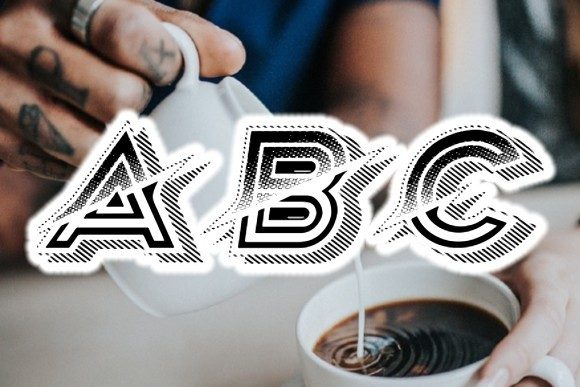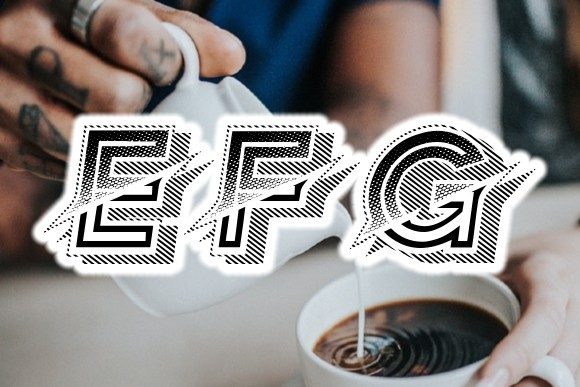
Introduction to Milch Font
Have you ever stared at a blank page, struggling to find the perfect font to bring your creative project to life? The search for the ideal typography can be daunting, but what if I told you there’s a game-changing solution waiting for you? Introducing the Milch Font, a simple yet striking display font that will elevate your designs to new heights.
Designed to add a touch of sophistication and elegance to your work, the Milch Font is a valuable resource for designers of all levels. With its 3D, sharp look, this font is perfect for creating eye-catching visuals that demand attention. Whether you’re working on a high-quality brochure or a digital campaign, the Milch Font is an excellent choice for adding a professional touch.
Key Features of Milch Font
- Unique, modern design aesthetic that sets it apart from other fonts, making it a great addition to any creative project.
Honest Review: Milch Font
As a designer, I’m always on the lookout for high-quality design resources to elevate my creative projects. The Milch Font caught my eye, and I was excited to dive in and see what it had to offer.
- ✨ Unique and playful design aesthetic that adds a touch of whimsy to any project
- ⚠️ Limited font family options, which may not be suitable for larger-scale projects
- ⚠️ Some users may find the font’s style too bold or overpowering
Overall, I was impressed with the Milch Font and its potential to add a creative touch to design projects. While it may not be suitable for every project, it’s definitely worth considering for smaller-scale or more experimental designs.
For the most out of Milch Font, use it for headings and titles in your designs. Common use cases include:
Logo designs
Brochures and flyers
Social media graphics
Web design elements